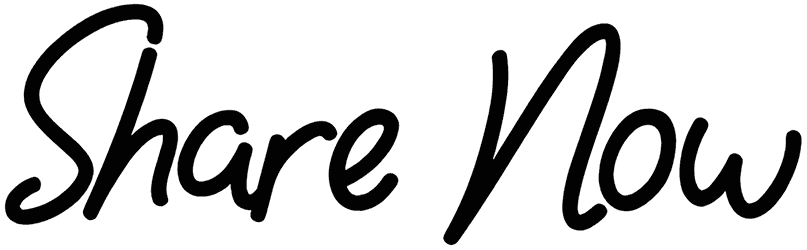
Share Now Font
Share Now is a font that grabs your attention by telling you an exciting story. This script font has a friendly vibe and will remain in the viewer’s mind.
You may use the Share Now font in several cases, such as book covers, print of clothing, and business cards, while it does not support numbers and symbols. This handwritten font’s letters have a curvy shape with smooth edges that create a pleasant feeling, so give it a try now.